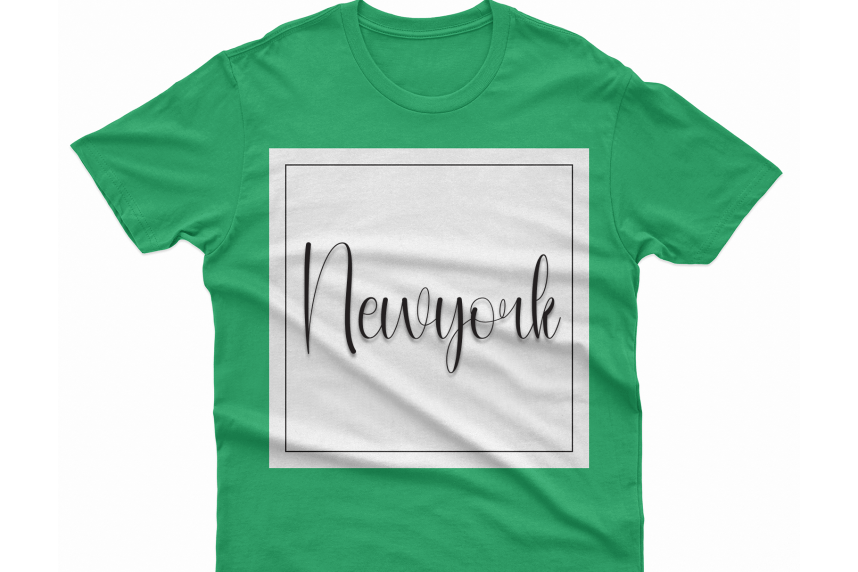
Kinder Birthday – New Style And Unique Font
Kinder Birthday – New Style And Unique Font is a sweet and friendly handwritten display font. Cute and fun, this font is ideal for writing wedding invitations, cards, or any other design that might need a playful touch!